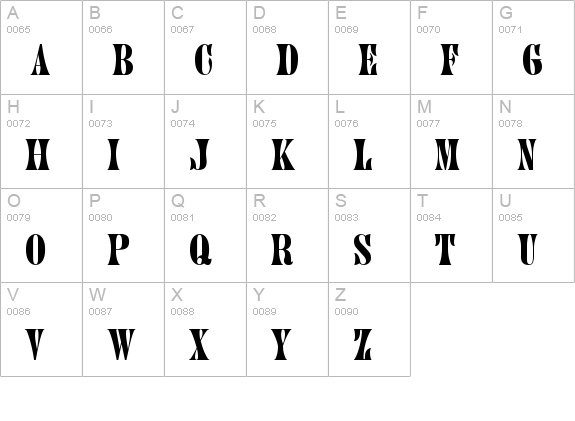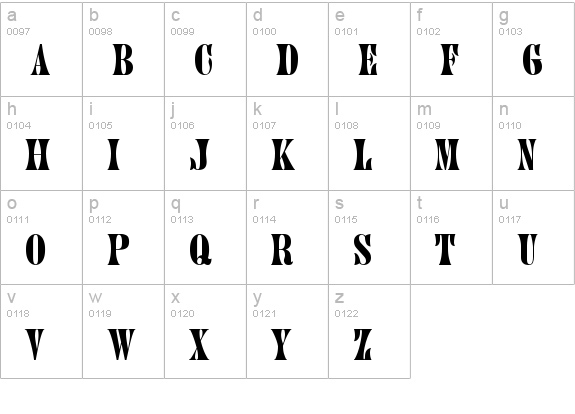
Hubbub SSi Bold is a strong, high-contrast variant in the Hubbub typeface family \xE2\x80\x94 well suited to headlines, attention-grabbing titles, and strong calls-to-action.
Hubbub SSi Bold font is a modern and versatile typeface that exudes confidence and strength. With its bold and striking design, this font is perfect for making a statement in headlines, titles, and branding materials. The clean lines and sharp edges of Hubbub SSi Bold give it a sleek and contemporary look that will enhance any design project. What's even better is that Hubbub SSi Bold font is available for free download at FontsMarket.com. This means you can easily access this high-quality typeface without any cost, making it a valuable addition to your font collection. Whether you're working on a professional project or a personal creative endeavor, Hubbub SSi Bold font is sure to make a bold impression. Download it today and elevate your designs with this stylish and impactful font.